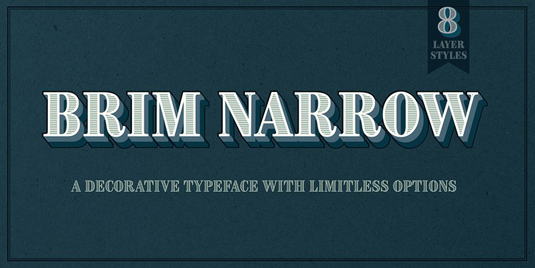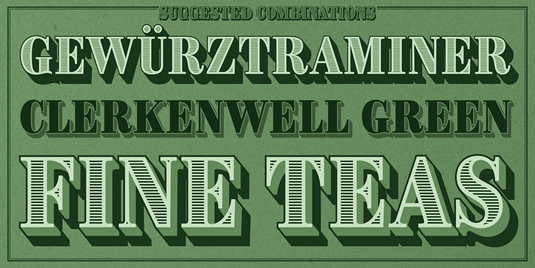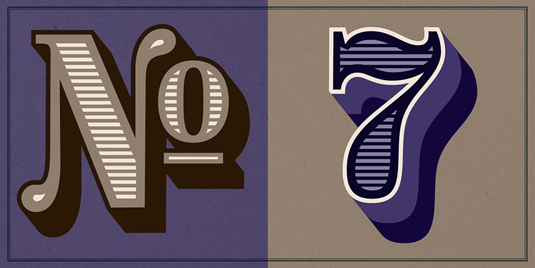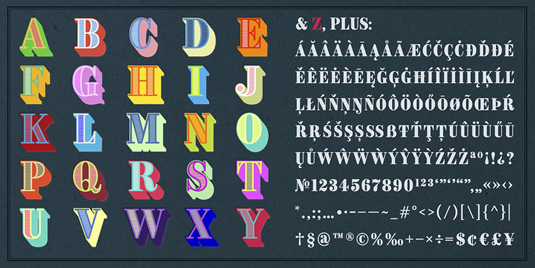
Font of the day: Brim Narrow
Brim Narrow by Jamie Clarke
A decorative, layered typeface, Brim is inspired by antique woodtype and chromatic type from the 1800s. Its various styles stack together creating a variety of decorative combinations. Each layer can be assigned its own colour, resulting in a rich assortment of eye-catching results.
"Brim began as a handful of letters created for a logotype," says creator Jamie Clarke. "It became clear that it would make an excellent display typeface, so it was expanded to include all uppercase letters, numbers, European accents and more. Warm and tactile, Brim produces punchy headlines and decorative titles. Perfect for posters, packaging and logotypes."